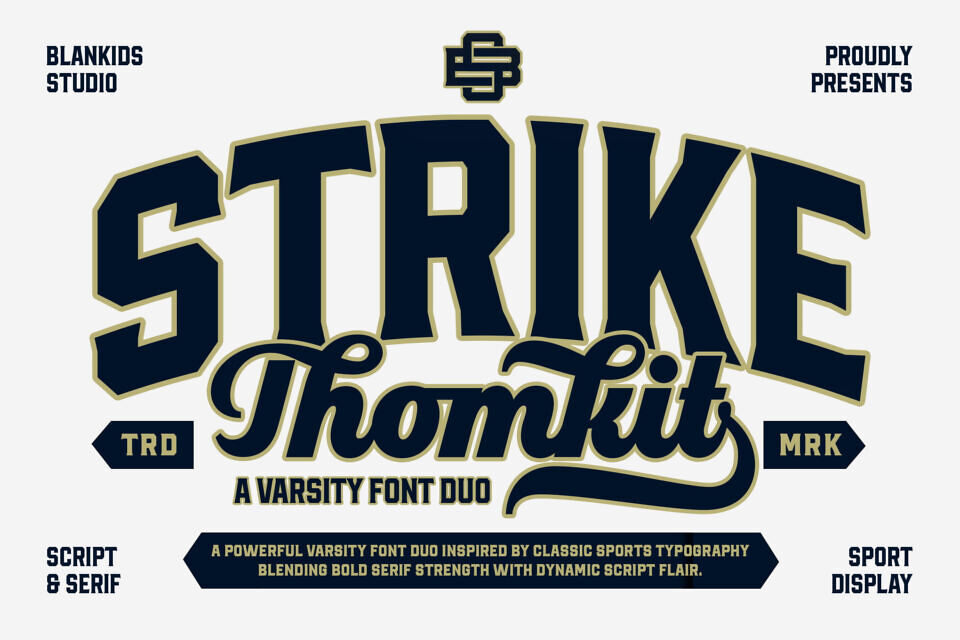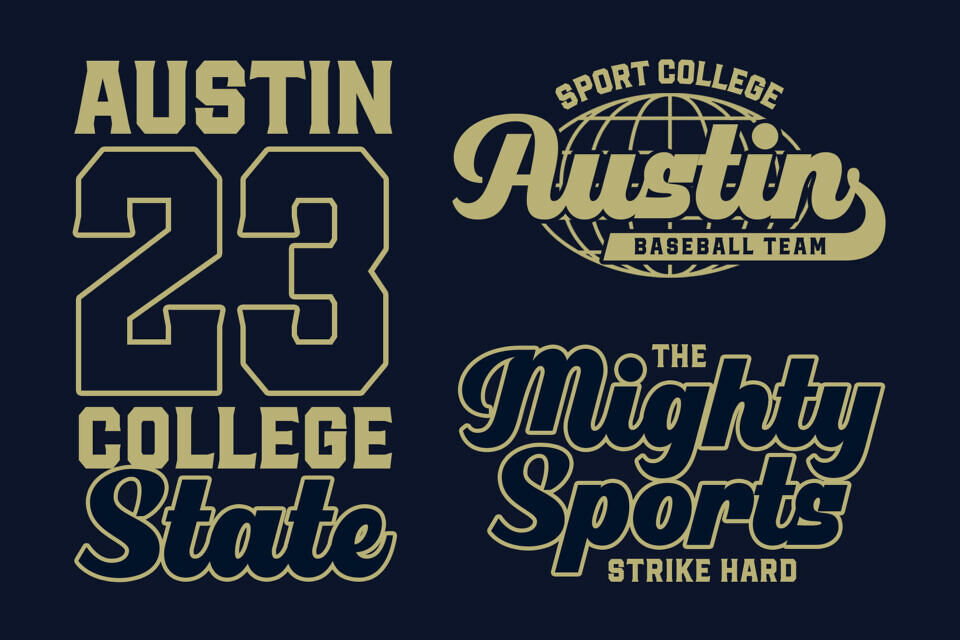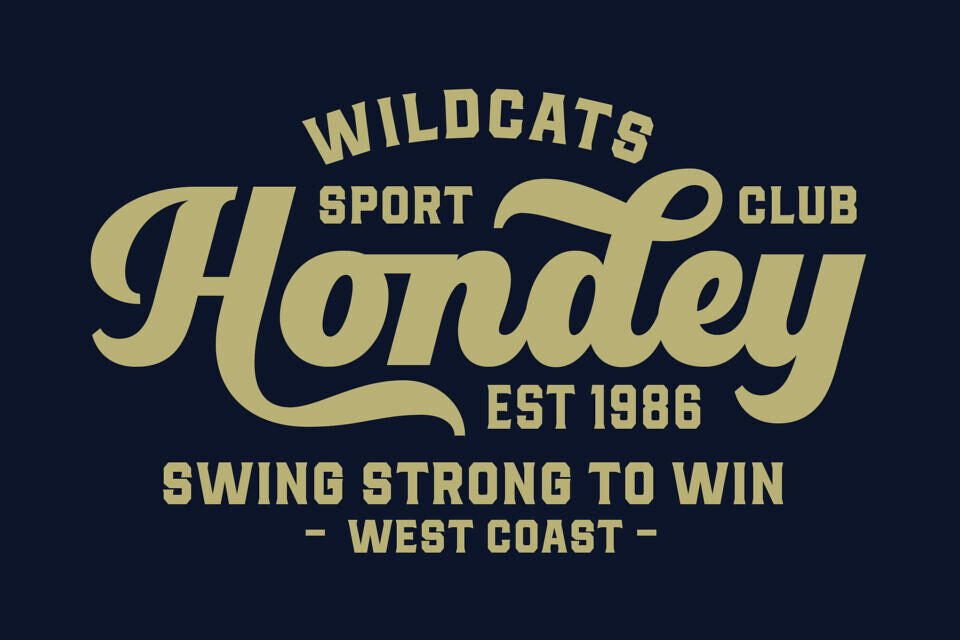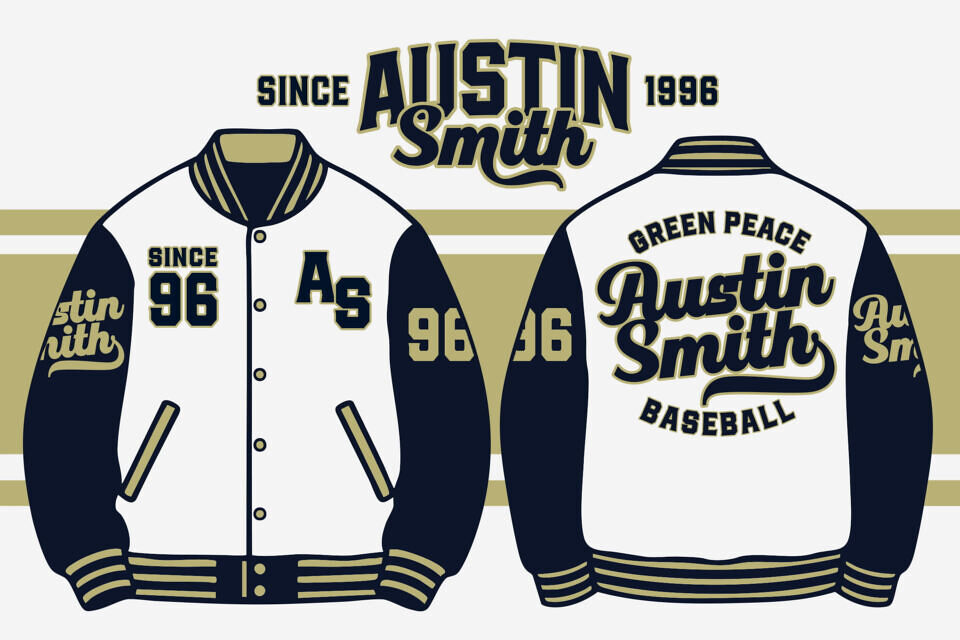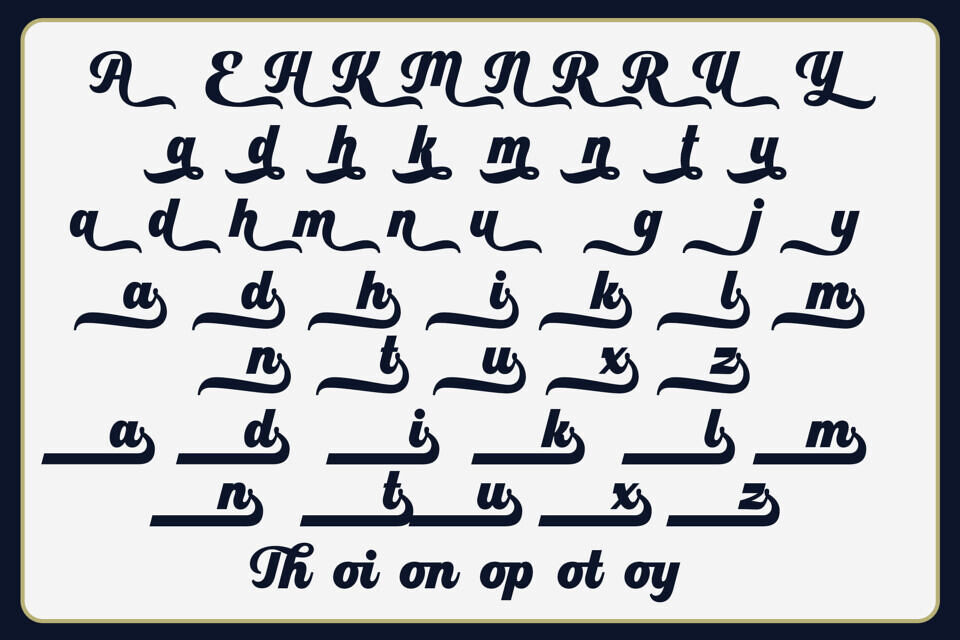
Thomkit Strike Font
Thomkit Strike is a bold and dynamic varsity font duo that combines a powerful sport serif display with a smooth, energetic script style. Inspired by classic American sports typography, college lettering, and vintage athletic branding, Thomkit Strike delivers strong visual impact with a timeless competitive spirit.
Designed to stand out, the serif style features thick strokes, sharp edges, and confident proportions, making it perfect for headlines, logos, jerseys, posters, and branding that demands authority and strength. The accompanying script font adds a dynamic handwritten flair, creating a perfect contrast that brings movement, personality, and authenticity to any design.